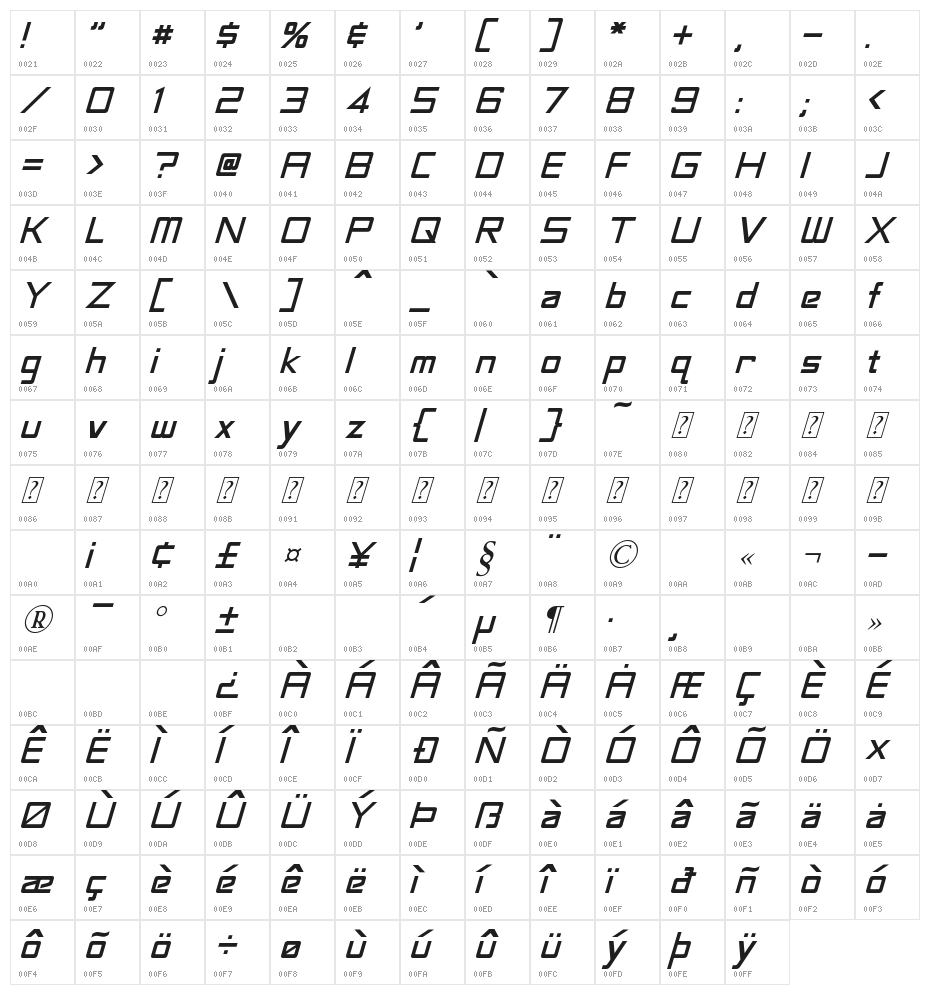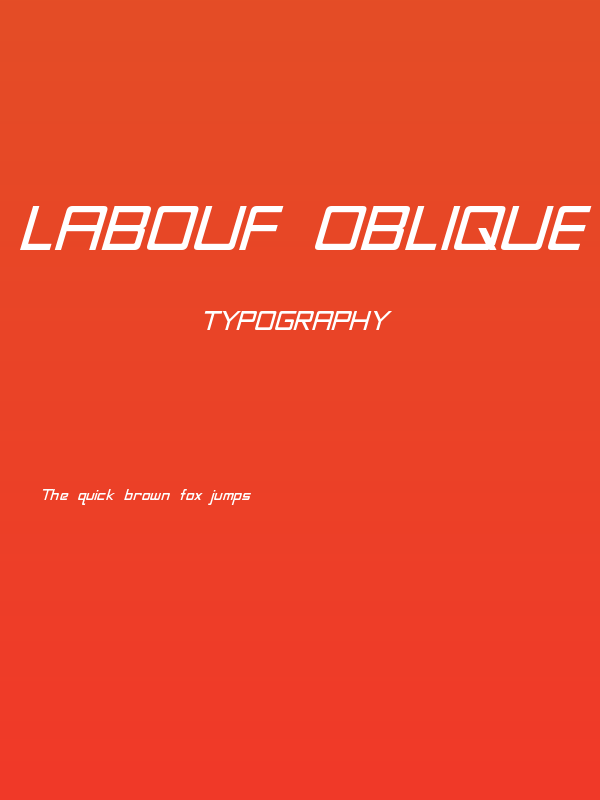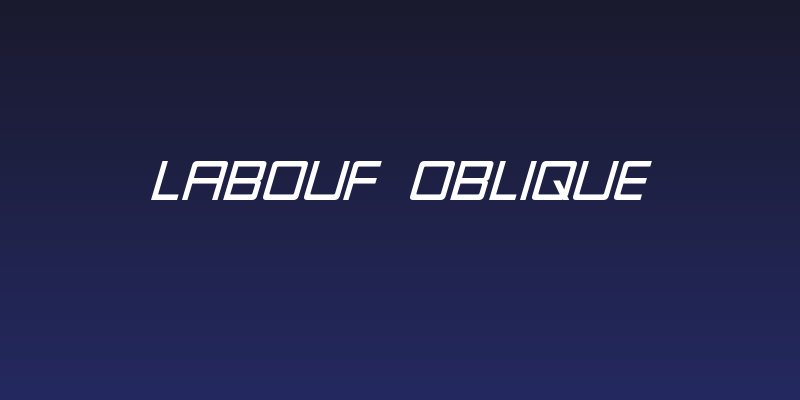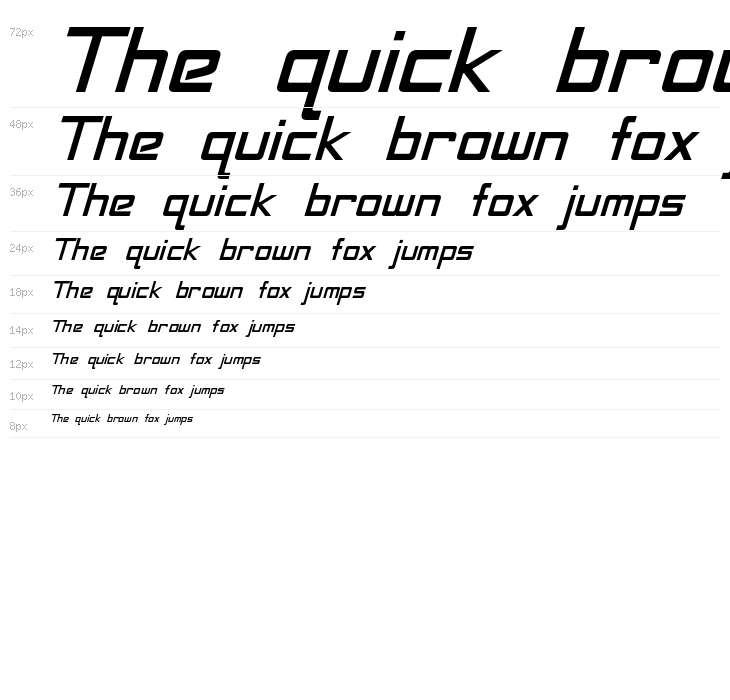
LaBouf Oblique Font
LaBouf Oblique Description
This font features a sleek and modern design with an oblique style, giving it a dynamic and forward-leaning appearance. The characters are well-defined with a consistent stroke width, providing a clean and professional look. The uppercase and lowercase letters maintain a uniform height, contributing to its streamlined aesthetic. Numbers and special characters are designed to complement the overall style, ensuring readability and visual harmony. The font's geometric structure and angular lines make it suitable for contemporary design projects.
Use CaseHeadlines, Logos, Digital interfaces
Proposed ProjectsIdeal for branding, advertising, sports-related designs, and modern digital interfaces.